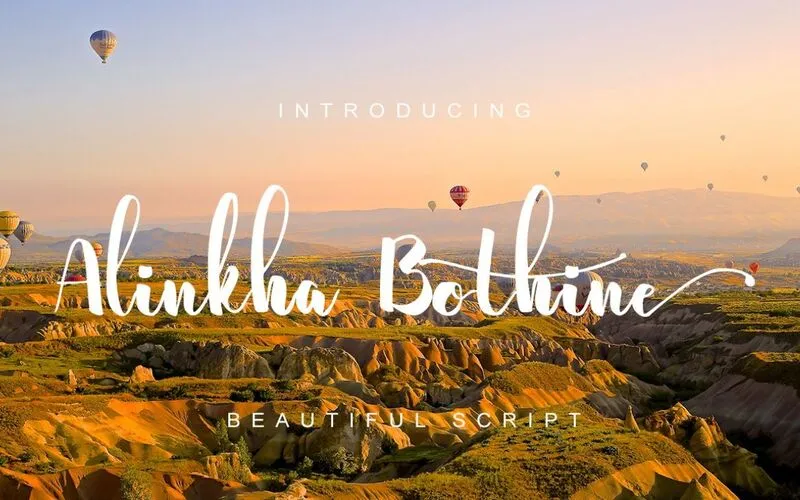
Bring modern elegance to your designs with –
Alinkha Bothine Free Font
A beautiful script and a free commercial font. With modern script style.
- Modern, stylish script style
- Elegant rounded and flowing letters
- Apparel & fashion designs
- Blog headers
- Branding & logos
- Invitations & stationery
- Letters & personal notes
- Posters & flyers
- Quotes & typography projects
- Weddings & event materials
- Style: Modern script, elegant handwritten